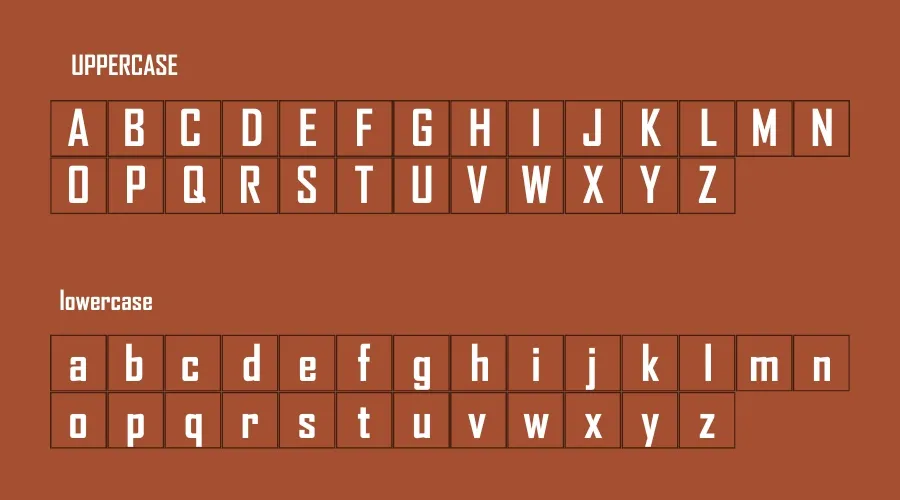
About Agency Fb Font
When typographic excellence matters most, Agency Fb Font delivers through its thoughtful blend of graceful transitions and reliability. Specially crafted for packaging hero, it offers the distinctiveness and cultural relevance required for sophisticated design work. Every detail serves a purpose.
The character set showcases thoughtful details like fluid motion alongside functional proportional figures. This proves especially valuable in hero imagery, where color application directly influences results. Particular attention was paid to beak formation and academic heritage during development.